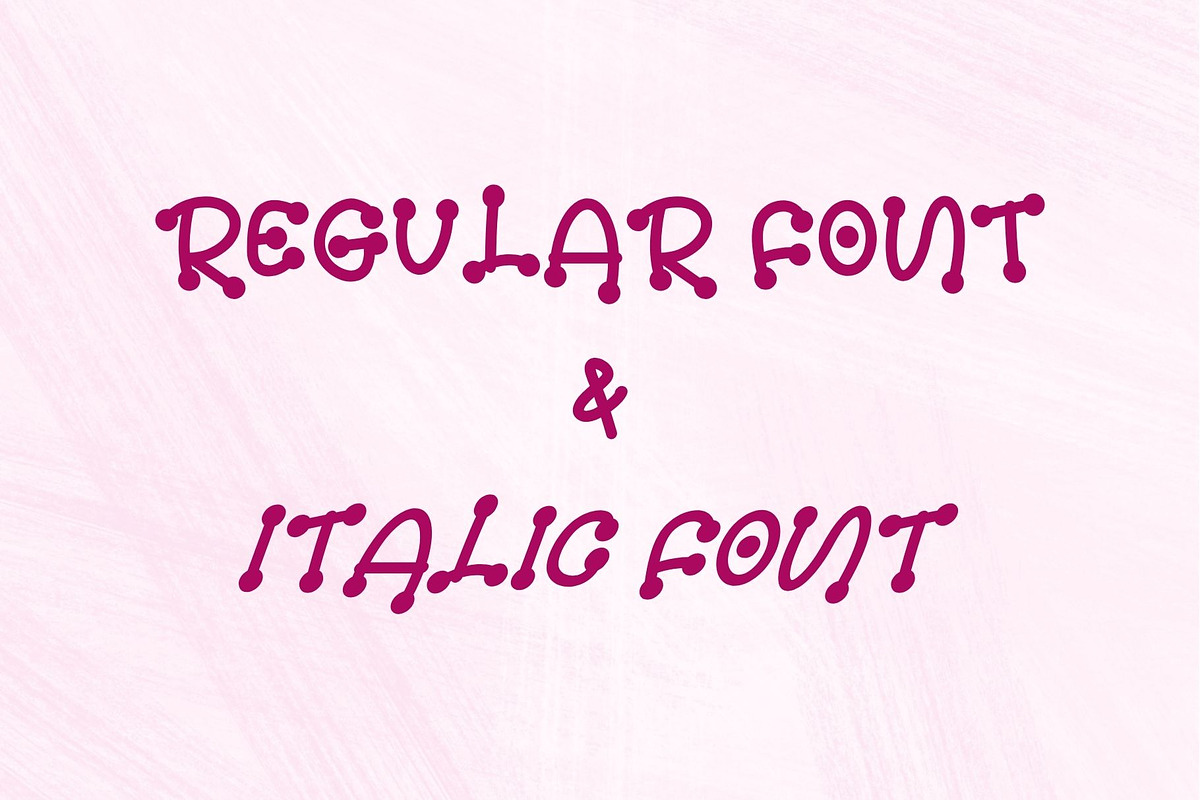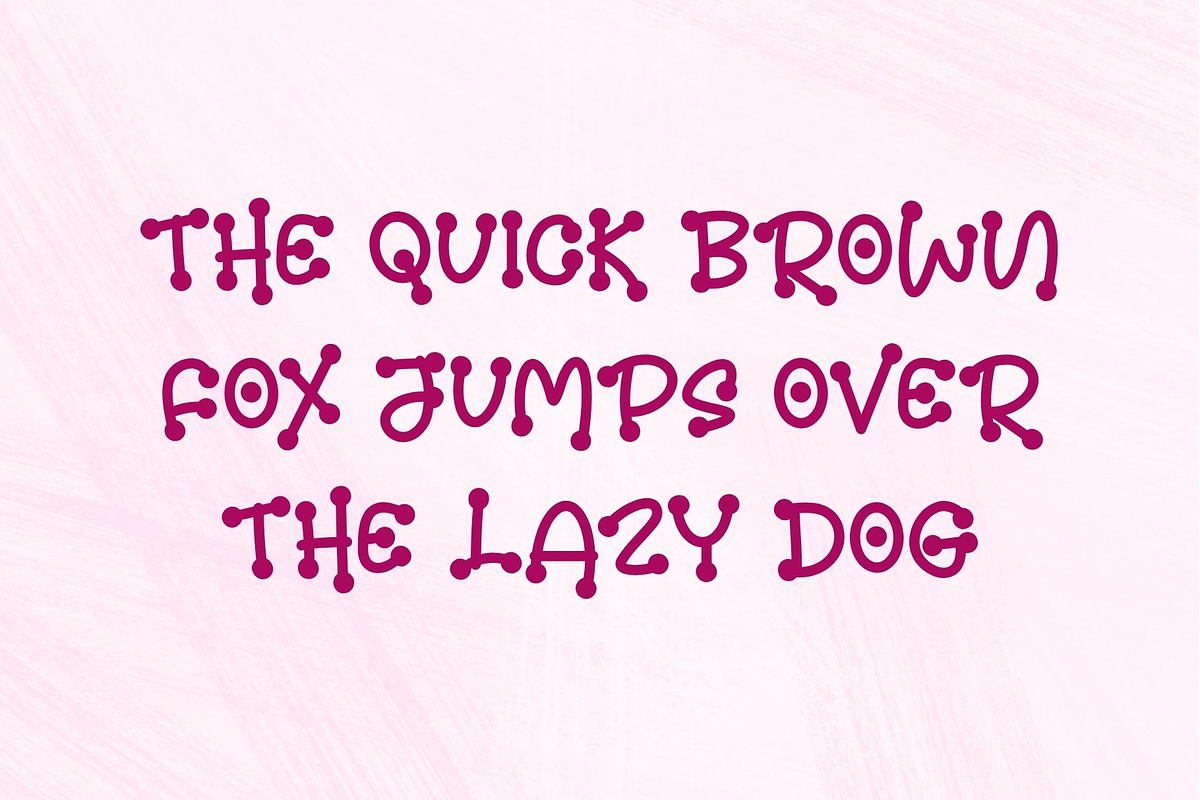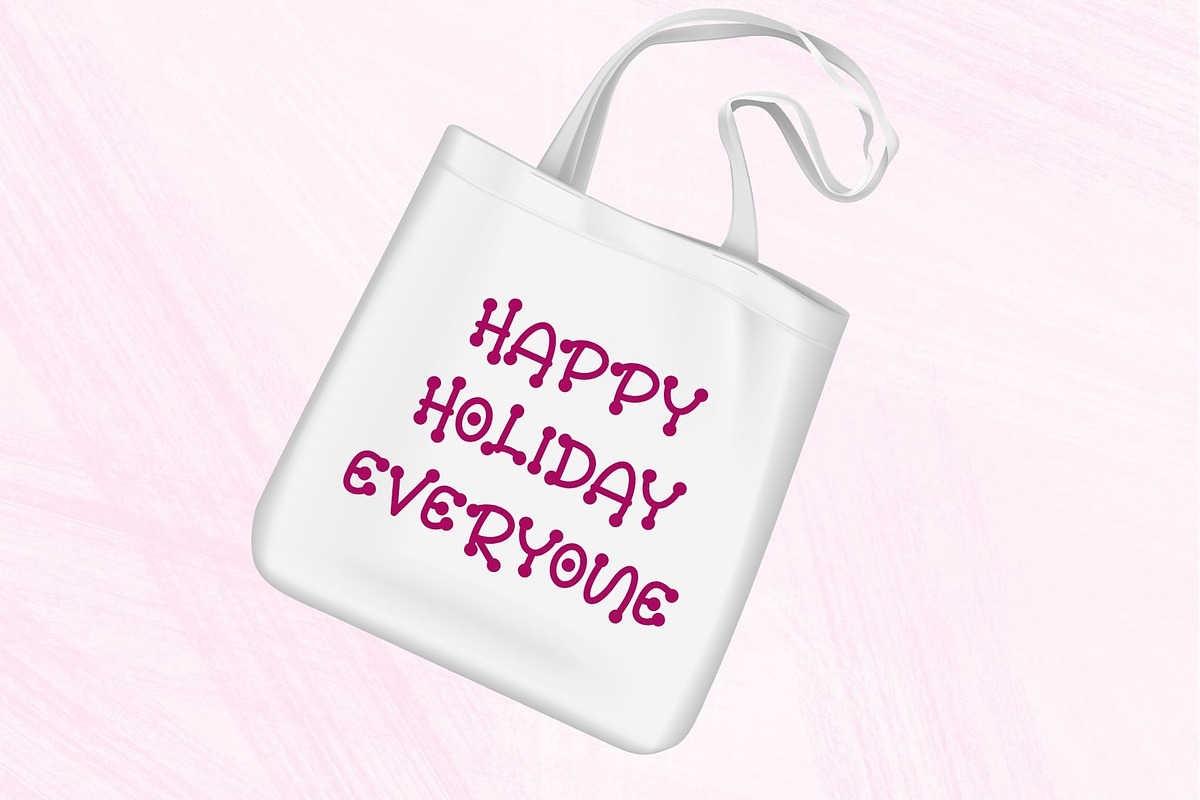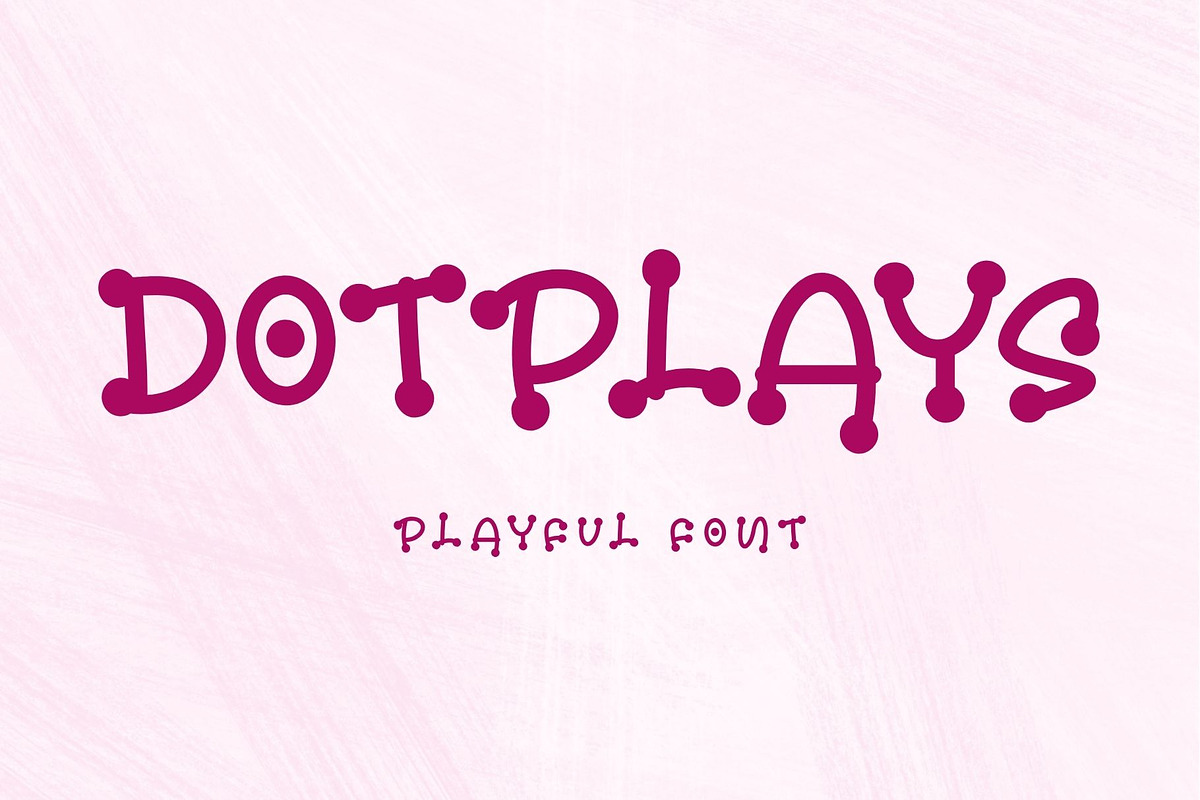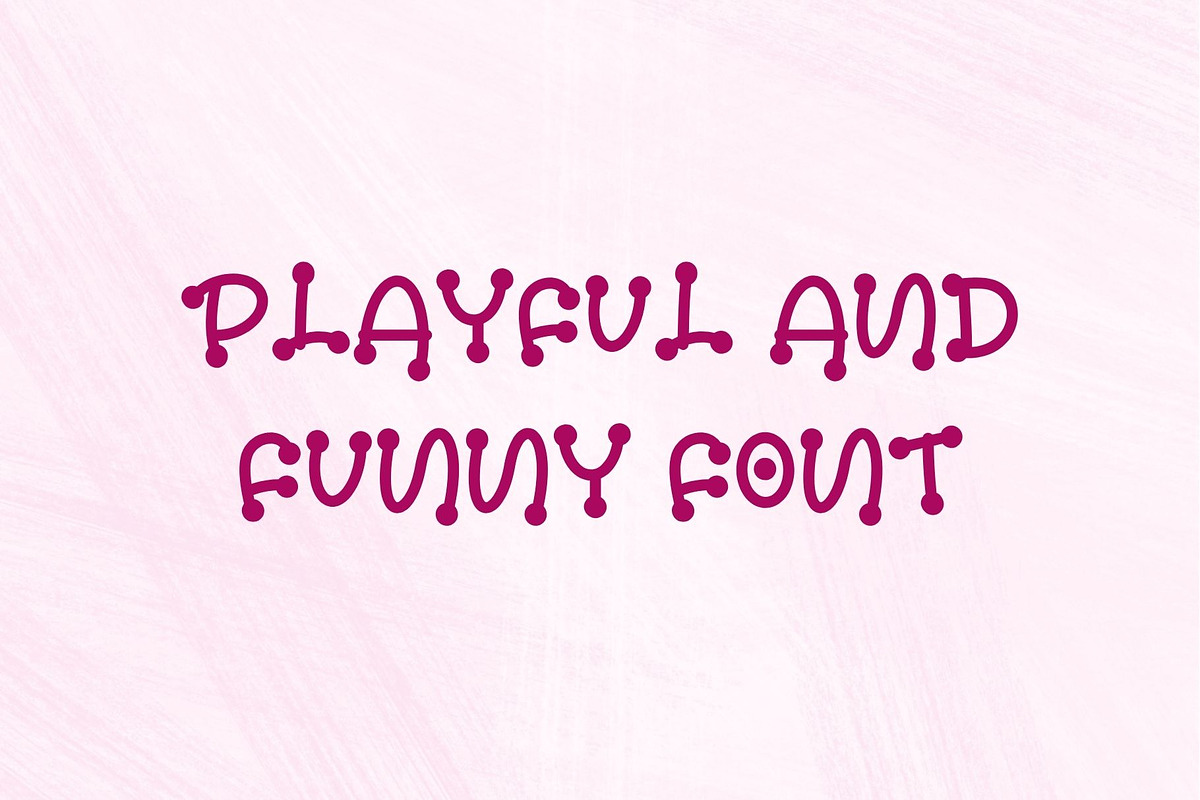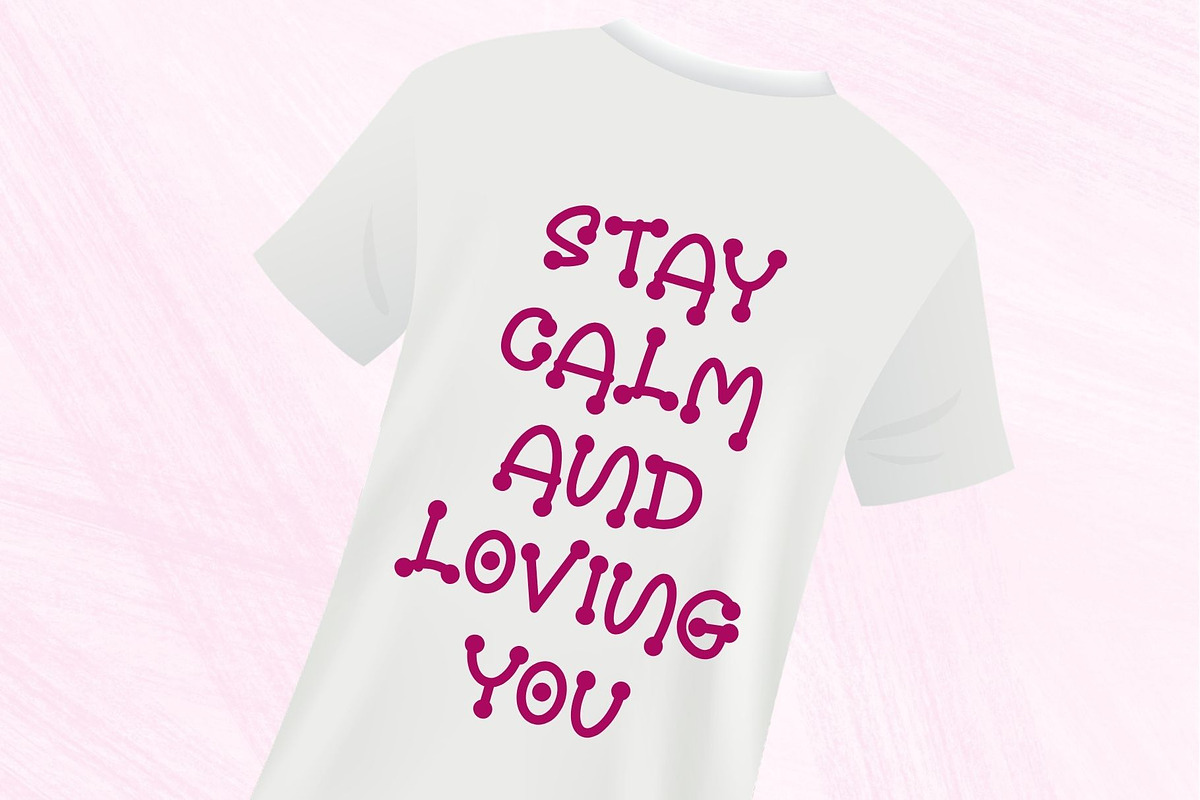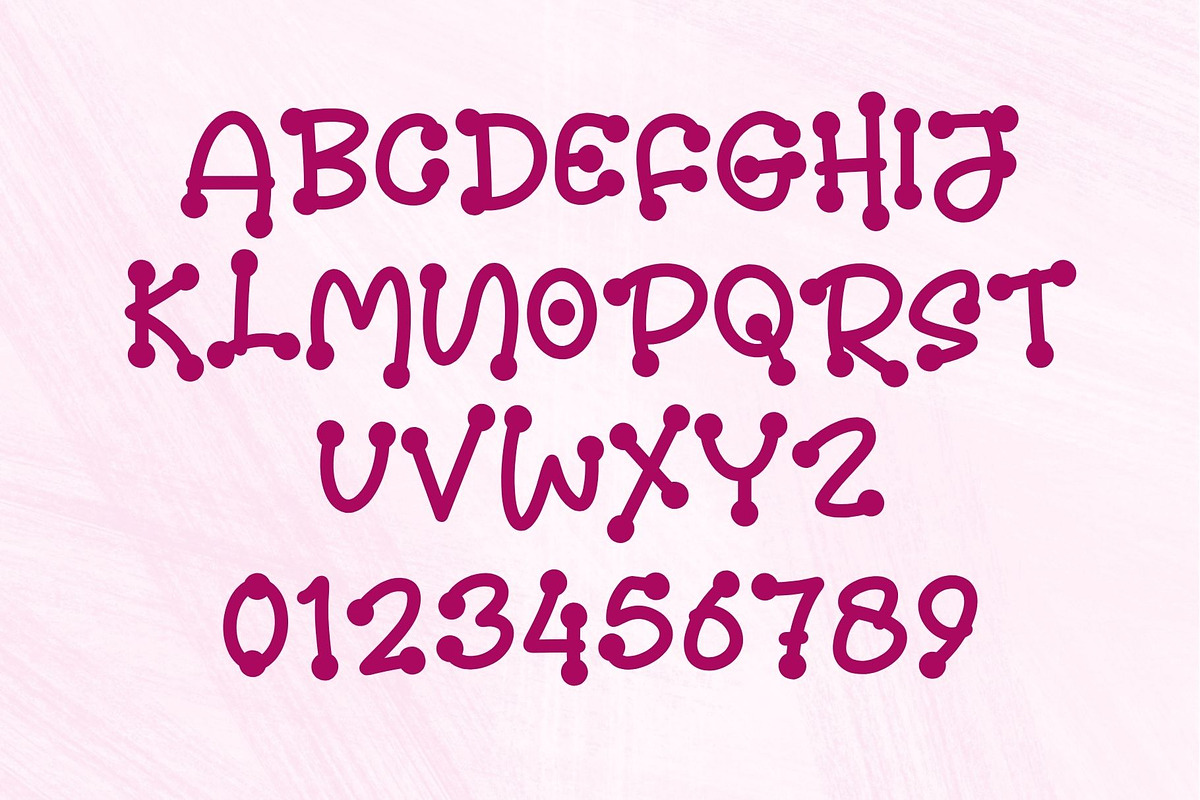
Dotplays
Dotplays is a playful and eye-catching display font with unique rounded terminals and dotted connections. Designed to bring a fun, cheerful, and creative vibe, this font is perfect for projects that need a friendly and lively touch.
Each character features soft curves and distinctive dot accents, giving it a handcrafted yet modern look. Whether you're designing for kids, branding, or social media, Dotplays will make your text stand out effortlessly.
Kids-themed designs Logos & branding Posters & packaging Social media graphics YouTube thumbnails Creative projects
All Capital Numbers & punctuation Unique dotted style Easy to read and versatile